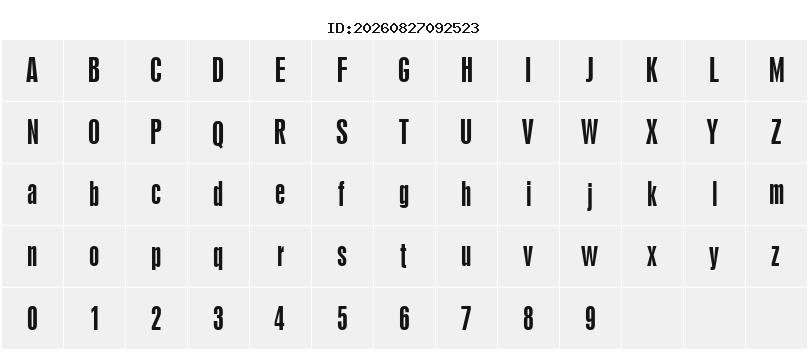
382-CAI978.ttf is a modern, elegant sans-serif font designed for ultimate readability and visual harmony. Perfect for branding, headlines, web design, and print materials.